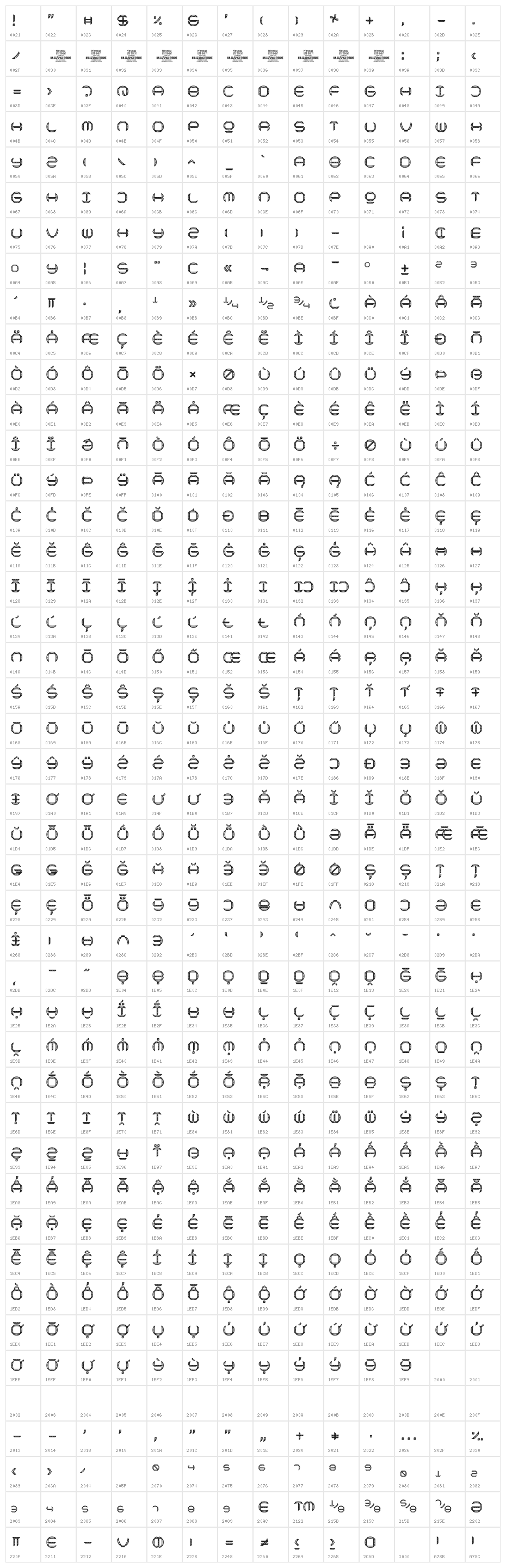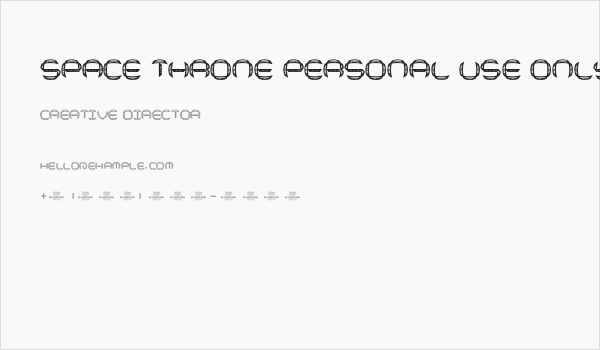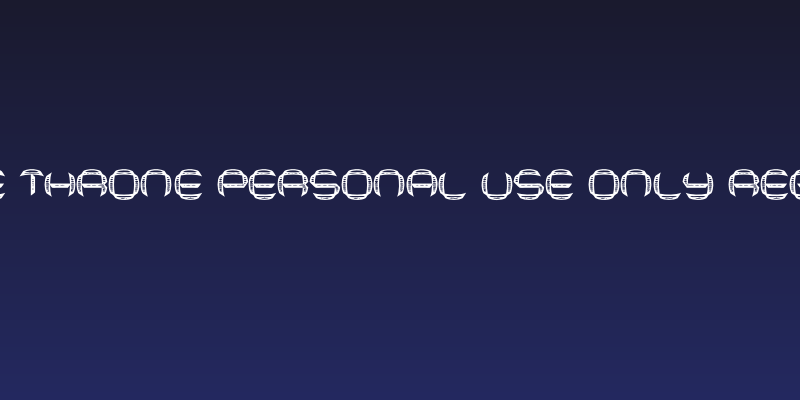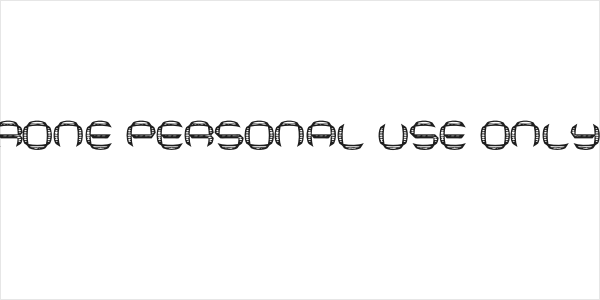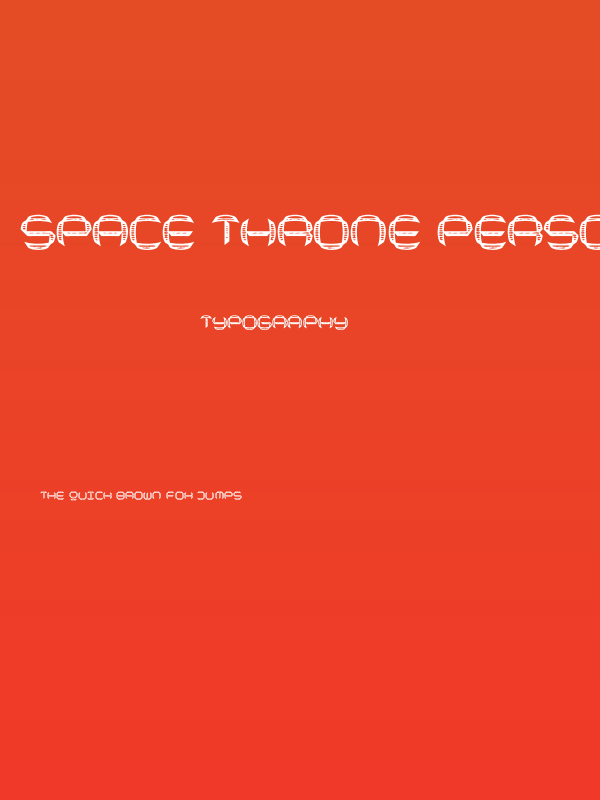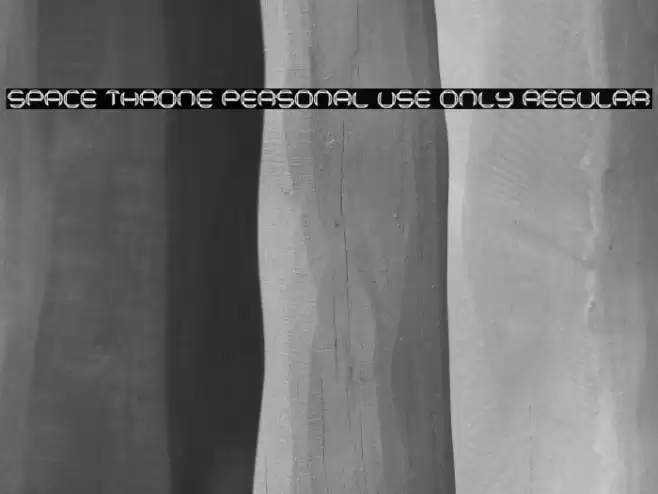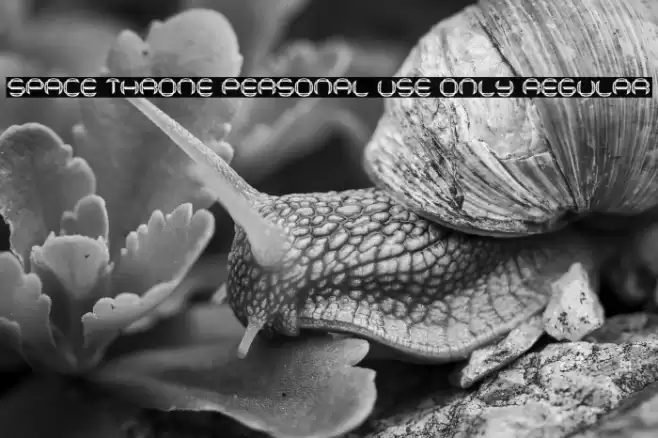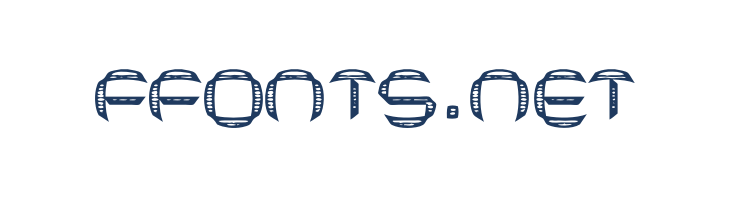
Space Throne PERSONAL USE ONLY Regular Font
Space Throne PERSONAL USE ONLY Regular Description
This font features a futuristic and geometric design with a unique, sci-fi aesthetic. The characters are constructed with bold, angular lines and intricate detailing that gives them a mechanical and space-themed appearance. Each letter is enclosed in a semi-circular frame, adding to the overall high-tech vibe. The font's style is reminiscent of digital interfaces or alien scripts, making it ideal for projects that require a modern and otherworldly touch. The uppercase and lowercase letters maintain a consistent design, while the numbers and special characters are equally stylized, ensuring a cohesive look across all text.
| Overall Style | Futuristic |
| Proposed Projects | Ideal for sci-fi movie posters, video game titles, tech-themed branding, and futuristic event invitations. |